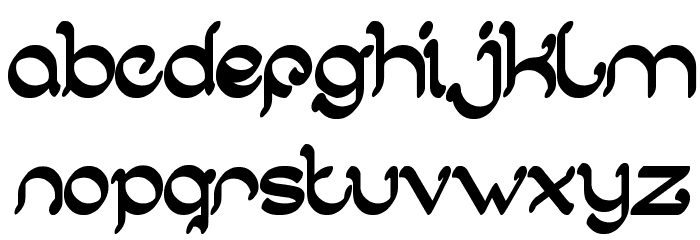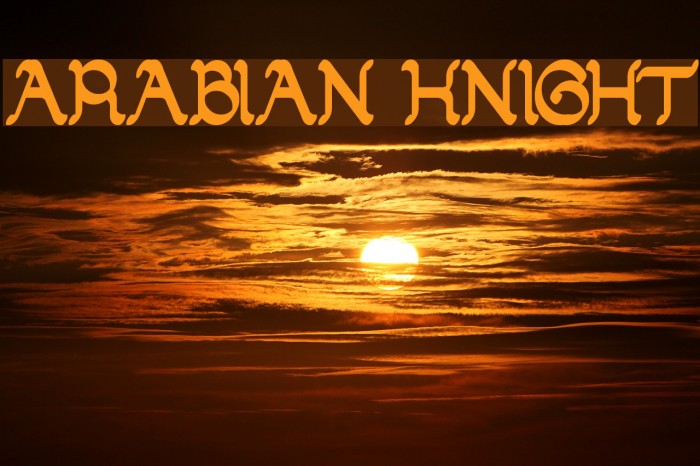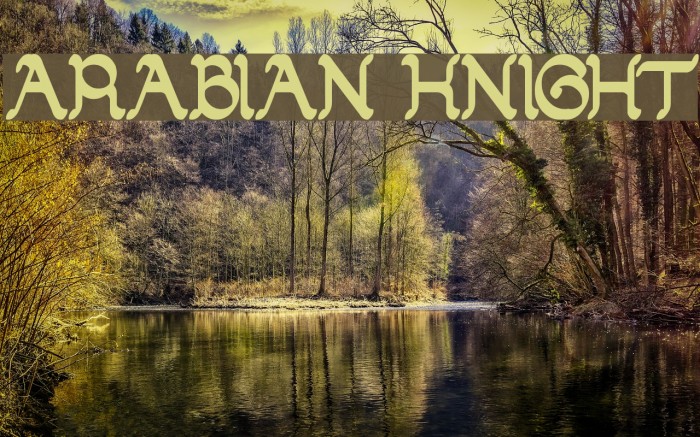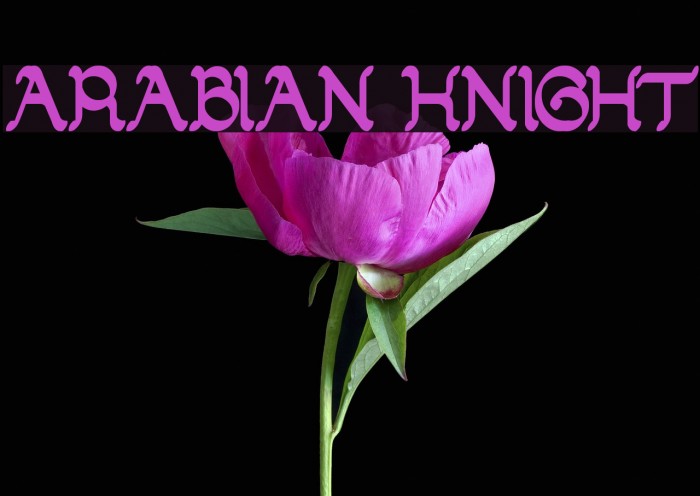
ARABIAN KNIGHT Font
This font exhibits a unique and exotic style, characterized by its intricate and decorative elements. The letters are bold and feature a distinct flair with curved and pointed strokes that evoke a sense of mystery and elegance. The uppercase and lowercase letters maintain a consistent design, with the uppercase being slightly more elaborate. The font's design is reminiscent of traditional Middle Eastern calligraphy, yet it maintains a modern twist, making it suitable for contemporary designs. The characters are well-spaced, ensuring readability while maintaining an artistic appeal.
An exotic, decorative font with intricate, bold strokes and a modern twist.
- Proposed Projects: Ideal for branding, posters, book covers, and themed event invitations.